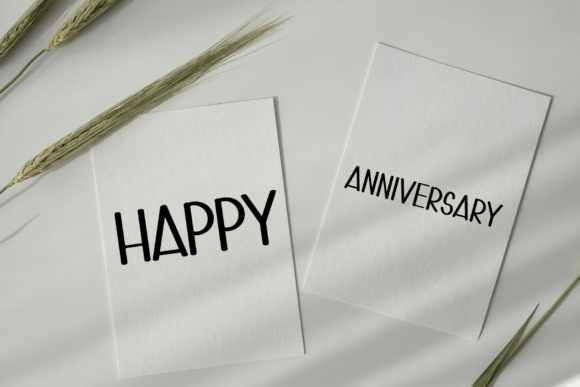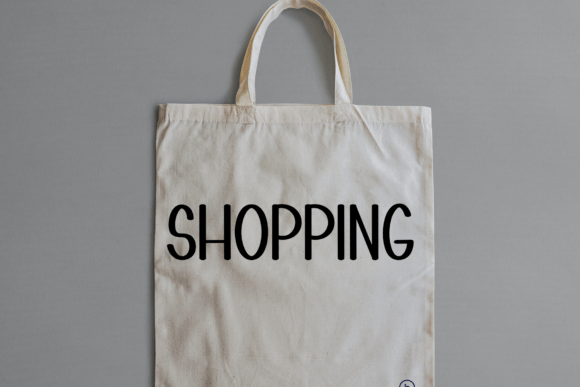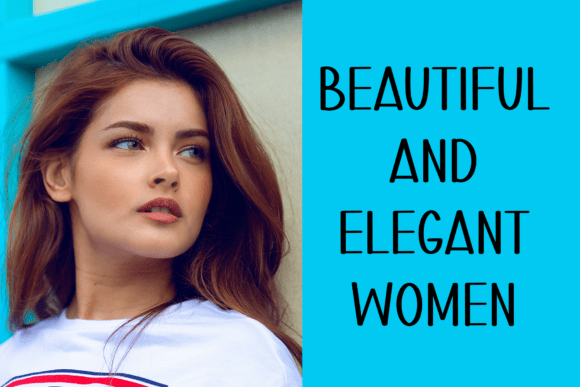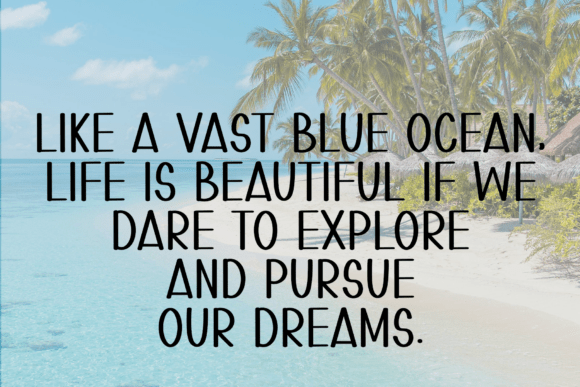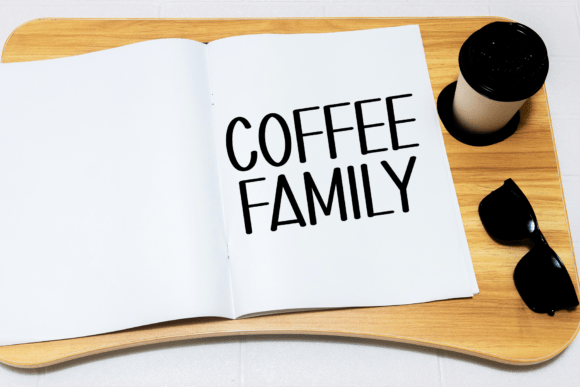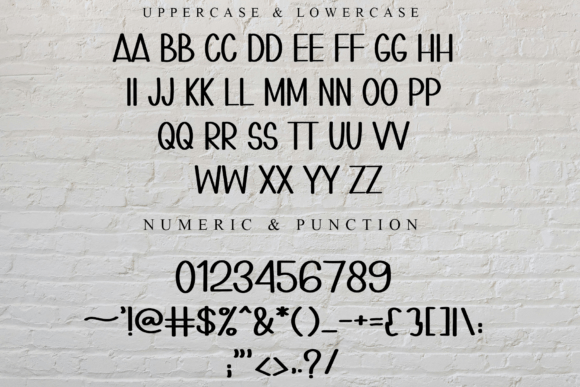
The Anniversary Font: A Warm and Playful Addition to Your Design Toolkit
I’ll never forget the time I was working on a project for a client’s anniversary party invitation. I had spent hours brainstorming ideas, but something was missing – the perfect font. I scrolled through my font library, but nothing seemed quite right. That’s when I stumbled upon the Anniversary font. Its round, playful strokes immediately caught my eye, and I knew I had found the one. In this article, I’ll share my experience with the Anniversary font, its features, and how to make the most of it in your designs.
Here’s what I love about the Anniversary font:
- ✨ Warm and friendly feel that’s perfect for personal projects and invitations
- ✅ Easy to read, even at smaller sizes
- 🎉 Charming, hand-drawn aesthetic that adds a unique touch to any design
As for quirks, I’ve noticed a few:
- 🤔 Some letters may appear a bit too rounded, which can make them blend together at smaller sizes
- ⚠️ Limited stylistic alternates, which may not offer as much flexibility for certain designs
The Story Behind Anniversary Font
The Anniversary font was designed with the intention of creating a warm and inviting typeface that would be perfect for personal projects and special occasions. The designer aimed to craft a font that would exude a sense of friendliness and approachability, making it ideal for designs that require a touch of warmth and personality.
| What type of projects is the Anniversary font best suited for? | The Anniversary font is perfect for personal projects, invitations, social media graphics, and any design that requires a warm and friendly feel. |